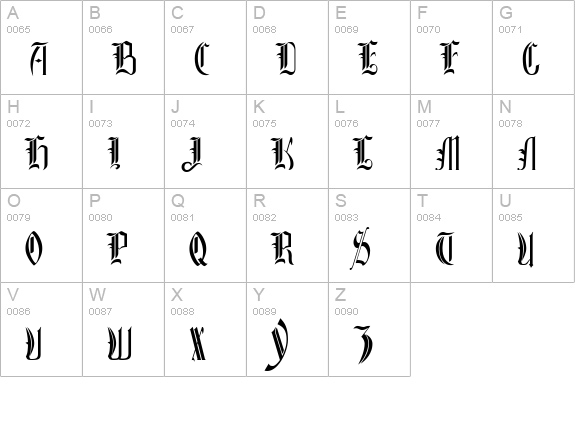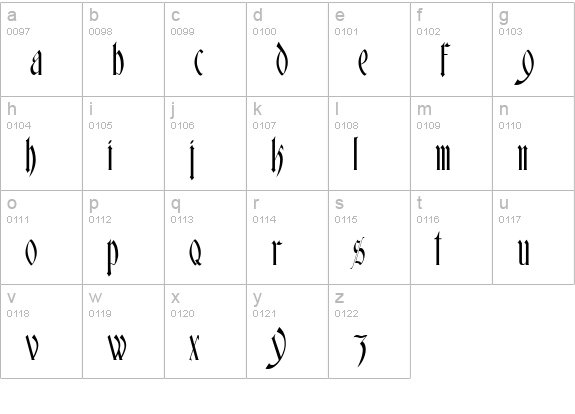
Glastonbury Font Details
Glastonbury font is a charming and elegant typeface that exudes a sense of sophistication and creativity. With its unique and intricate design, Glastonbury font is perfect for adding a touch of elegance to any project, whether it be for branding, invitations, or signage. What sets Glastonbury font apart is its versatility and timeless appeal. The delicate curves and sharp edges of the letters create a beautiful contrast that catches the eye and makes a lasting impression. Whether you're looking to add a touch of class to a wedding invitation or create a striking logo, Glastonbury font is sure to elevate your design. Best of all, Glastonbury font is freely available to download at FontsMarket.com. This means that you can easily add this stunning typeface to your collection without any hassle. So why wait? Download Glastonbury font today and let your creativity soar!